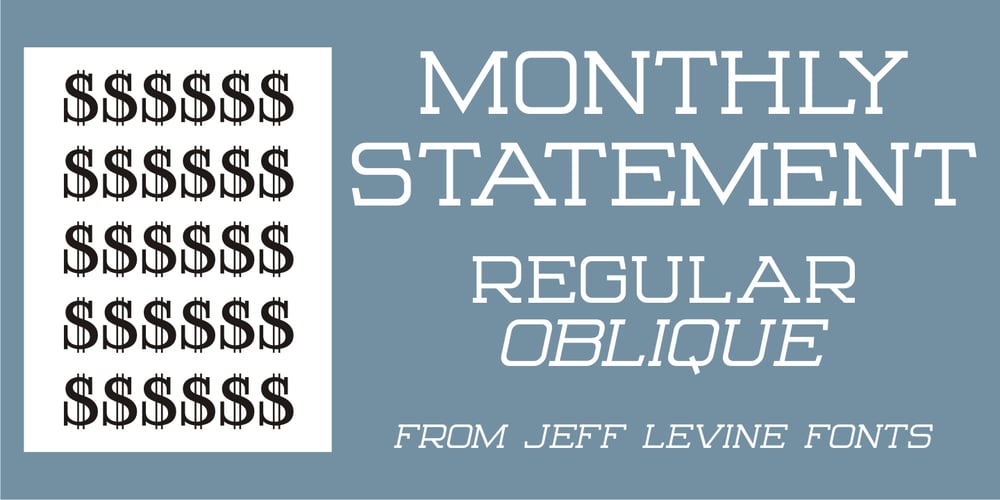
Monthly Statement JNL Font Family was designed by Jeff Levine and published by Jeff Levine. Monthly Statement JNL contains 2 styles and family package options. The 1934 French publication L’Art du Tracé Rationnel de la Lettre is a vintage guide book on lettering chock full of interesting alphabets that have been an ongoing source of digital type revivals from the designs found within its pages. Monthly Statement JNL is a squared slab serif design with some Art Deco flair; available in both regular and oblique versions. This style of type evokes images of billheads, bank statements and other important documents of the era.